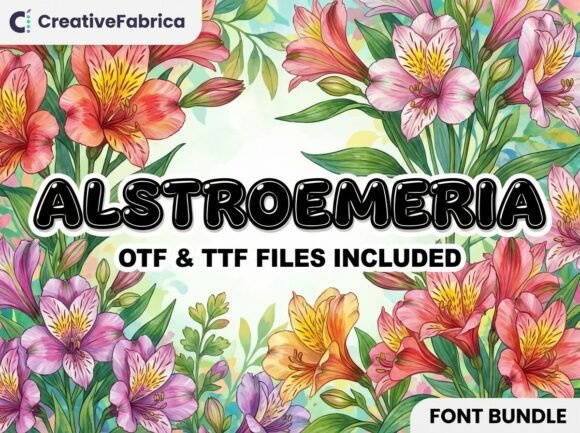
Alstroemeria: A Vibrant Display Font for Editorial Charm
As someone who designs newsletters, ebooks, and digital magazines—where every typographic choice shapes tone, trust, and attention—I’ve grown particular about display fonts that do more than just look pretty. Alstroemeria stands out not because it’s loud or flashy, but because it carries a quiet, sunlit confidence: rounded, buoyant, and unmistakably warm. It’s a display font built for moments where personality matters—cover titles, chapter openers, quote graphics, and brand signatures—not for body text, but for the visual punctuation that guides readers emotionally through your content.
Visually, Alstroemeria leans into its “bubble-style” character with soft, even curves, generous x-height, and subtle internal contrast. Letters breathe; spacing feels intuitive, not cramped. There’s no sharpness here—no aggressive serifs, no tight kerning tension—just gentle rhythm and consistent positivity. That makes it especially effective in contexts where approachability and joy are part of the message: children’s educational guides, floral-themed lifestyle blogs, wellness workbooks, or wedding planning printables. Its charm isn’t cutesy—it’s grounded, sincere, and editorially intentional.
Where Alstroemeria Earns Its Place in Your Layouts
In editorial design, display fonts serve as visual anchors. With Alstroemeria, those anchors feel welcoming rather than imposing. Use it for magazine cover headlines to set an uplifting, human-centered tone—even on serious topics like mental wellness or sustainable living, its warmth invites curiosity without diluting substance. For ebook covers, pair it with a restrained serif (like Merriweather or EB Garamond) to balance expressiveness with credibility. The contrast reinforces hierarchy: Alstroemeria draws the eye; the serif supports legibility and authority in the subtitle and author line.
Within articles and newsletters, reserve Alstroemeria for strategic emphasis: pull quotes that need emotional resonance, section dividers in printable guides, or illustrated chapter headings in coaching workbooks. Its shape holds up beautifully at medium sizes (36–72pt) across screen and print—whether embedded in a PDF ebook, exported as a PNG for social media teasers, or scaled for mobile newsletter headers. Just avoid using it below 24pt for screen reading; its charm relies on its full form, and small sizes risk blurring its distinctive contours.
Pairing Thoughtfully for Readability and Rhythm
A strong display font only shines when paired with intention. Alstroemeria works best beside typefaces that offer structure without stiffness. Try it with a warm, open sans serif—like Inter, Lato, or Nunito—for captions, navigation menus, and body copy in digital newsletters. Their clean neutrality lets Alstroemeria’s personality lead without competing. For print-heavy projects—think seasonal recipe collections or botanical-themed planners—pair it with a friendly serif such as Cormorant Garamond or Playfair Display. These combinations create visual breathing room while reinforcing thematic cohesion: organic, thoughtful, unhurried.
Importantly, Alstroemeria is designed as a display font—not a text face—so never force it into long paragraphs or dense sidebars. Its strength lies in brevity and impact: a single headline, a two-line subhead, a centered quote graphic. When used this way, it elevates reader engagement by signaling shifts in voice or focus, helping audiences parse information intuitively.
Practical Considerations for Creators
Real-World Uses That Shine
- Lifestyle blogs: Use Alstroemeria for featured post headers and Instagram story quote graphics—its roundness echoes hand-drawn illustrations often paired with slow-living content.
- Recipe ebooks: Apply it to dish names and seasonal section titles (e.g., “Spring Herb Salad” or “Summer Berry Tart”), then follow with a crisp sans serif for ingredients and instructions.
- Coaching workbooks: Set reflective prompts or affirmation statements in Alstroemeria to soften tone and encourage openness—especially effective in journaling spreads or guided reflection pages.
- Digital magazines: Deploy it sparingly on mastheads, contributor spotlights, and themed issue banners (“The Joy Issue,” “Rooted Edition”) to reinforce identity without overwhelming layout density.
- Printable planners: Use it for weekly focus phrases or monthly intentions—small bursts of typography that act as visual bookmarks throughout the year.
Ultimately, Alstroemeria doesn’t shout. It smiles—consistently, clearly, and with quiet confidence. That makes it unusually versatile for creators who value both aesthetic integrity and reader-centered design. Whether you’re refining a brand’s visual language or designing your fifth seasonal newsletter, it offers a reliable note of warmth that resonates across formats, devices, and audiences—without sacrificing professionalism or clarity.